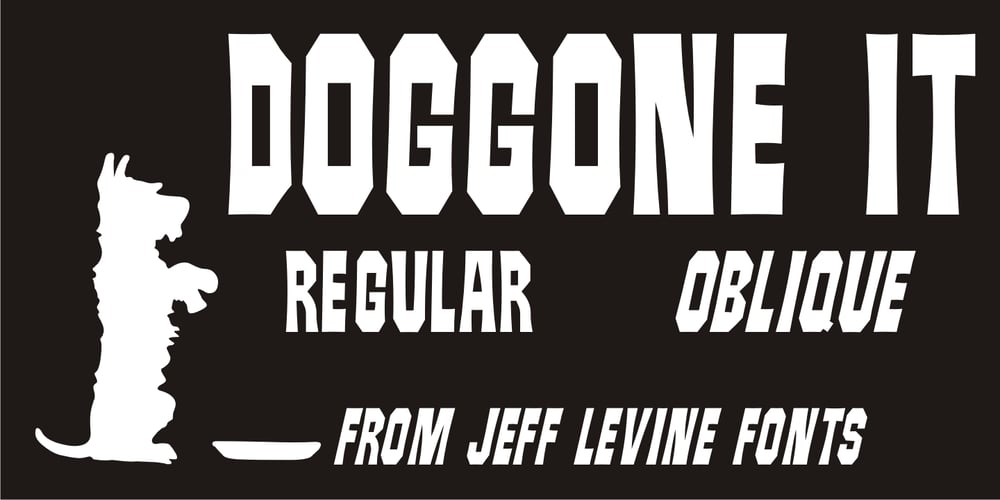
Doggone It JNL Font Family was designed by Jeff Levine and published by Jeff Levine. Doggone It JNL contains 2 styles and family package options. The hand lettering for the movie posters and collateral items for the 1962 film “Mondo Cane” inspired Doggone It JNL, which is available in both regular and oblique versions. “Mondo Cane” loosely translates into “A Dog’s World”, and the subject of the travelogue documentary consisted mainly of unusual cultural practices around the world that many would find perverse, depraved or shocking.